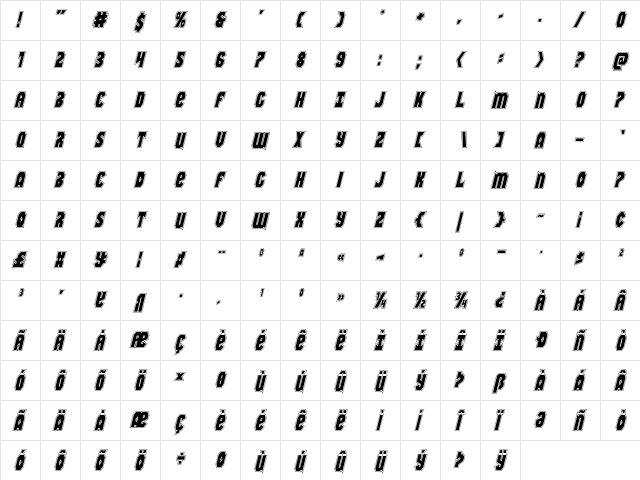
Warrior Nation Academy Italic Italic
Design Context for Warrior Nation Academy Italic Typeface
Warrior Nation Academy Italic is a composed and adaptable typeface that performs quietly and consistently across a wide range of design contexts. Its italic angle brings a sense of urgency and motion to the letterforms.
Pro Tip: Use Warrior Nation Academy Italic for emphasis, pull quotes, and subheadings where its slanted energy can add rhythm to the layout.